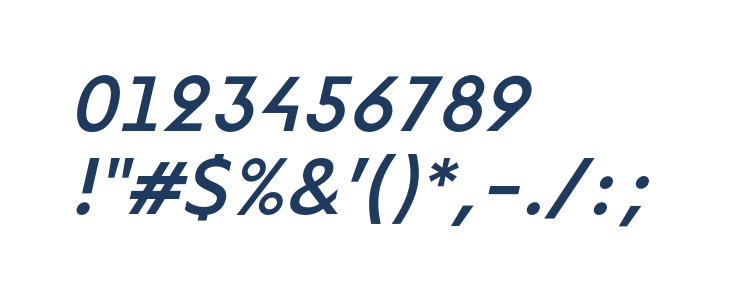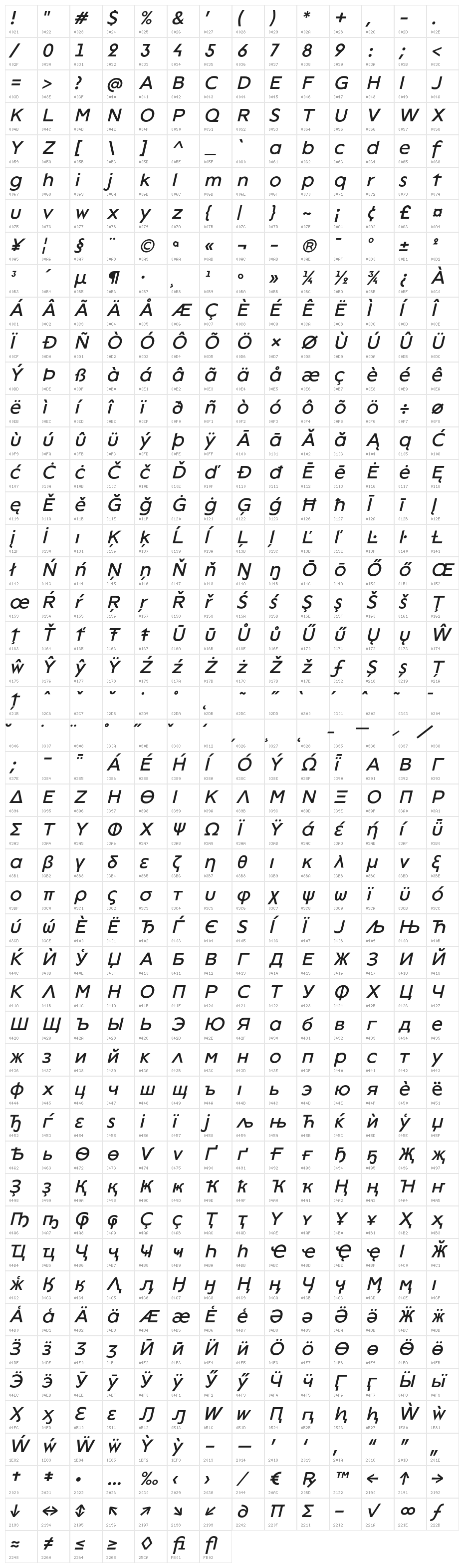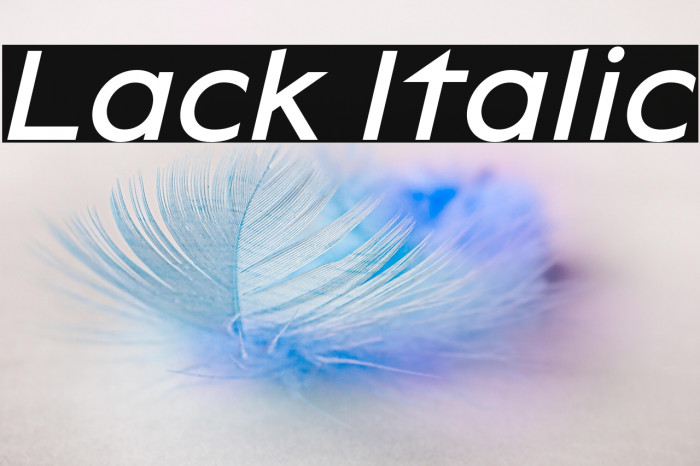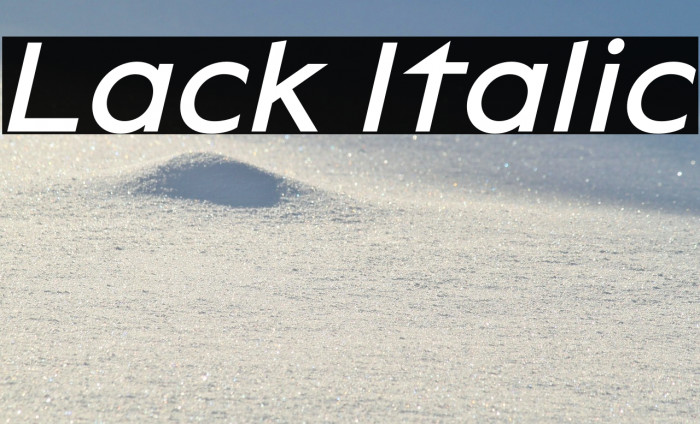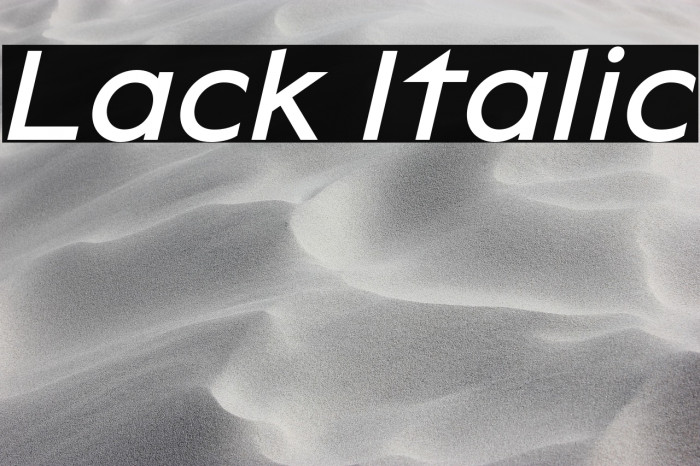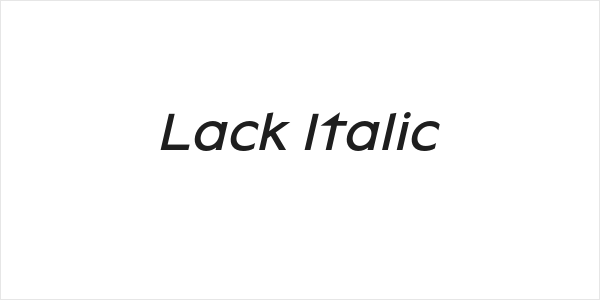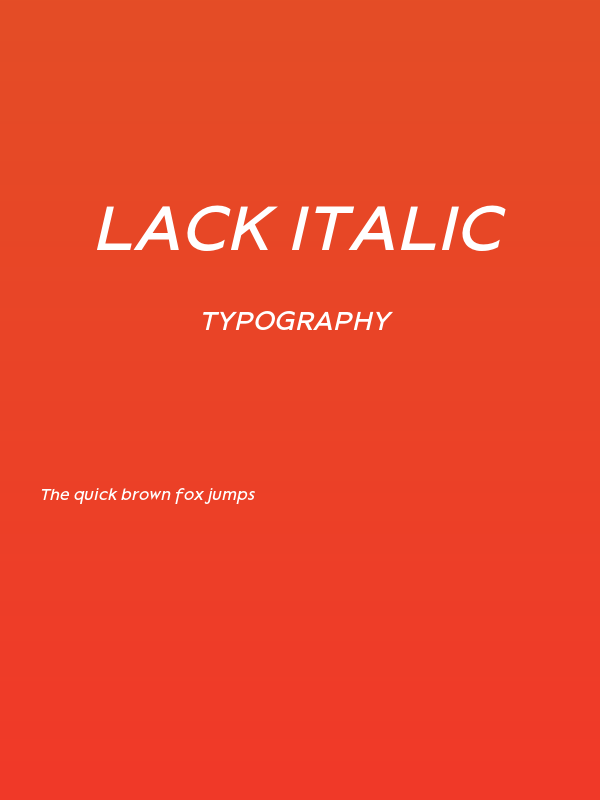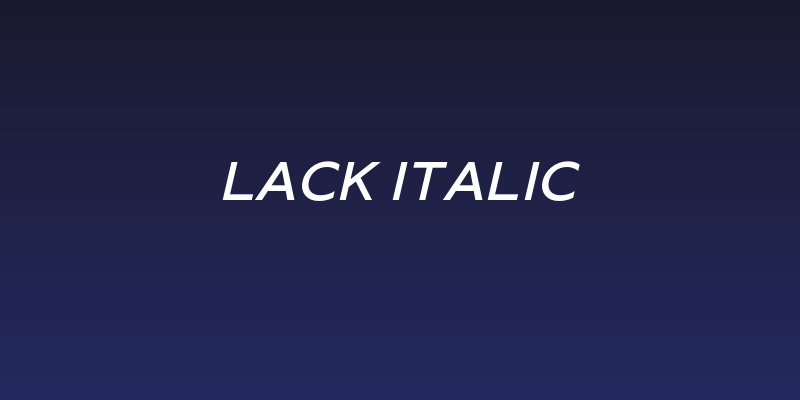
Lack Italic Font
Lack Italic Description
This font exhibits a sleek and modern design with an italicized style, offering a dynamic and forward-leaning appearance. The characters are well-proportioned, with a slight slant that adds a sense of motion and elegance. The uppercase and lowercase letters maintain a consistent style, ensuring readability and visual appeal. The numerals are clear and distinct, making them suitable for various applications. Special characters are included, providing versatility for different contexts. The overall design is clean and uncluttered, making it ideal for contemporary projects that require a touch of sophistication.